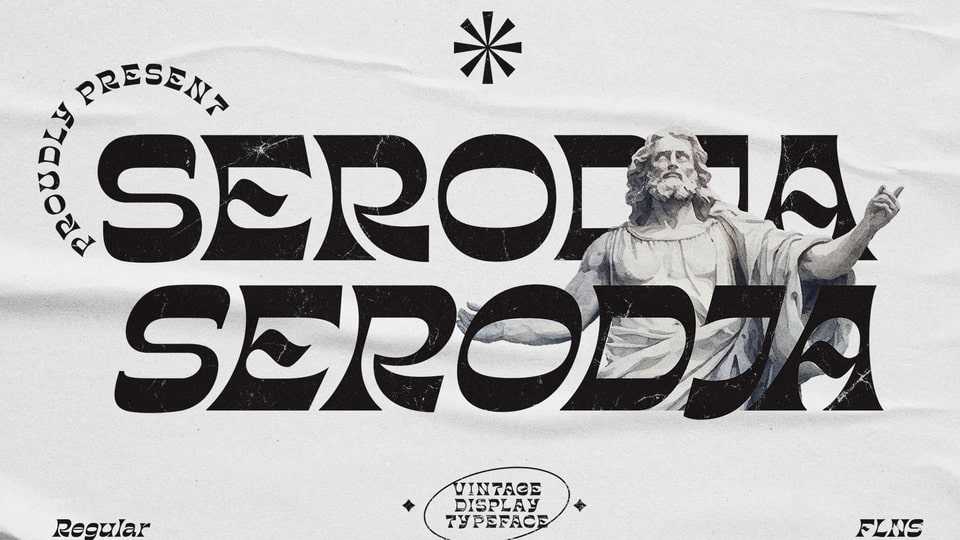
Download Serodja font, a timeless typeface with a vintage charm, perfect for capturing the essence of retro-themed designs. This font effortlessly blends elegance and casual simplicity, making it a versatile choice for various creative projects.
Designer: Fourlines Design